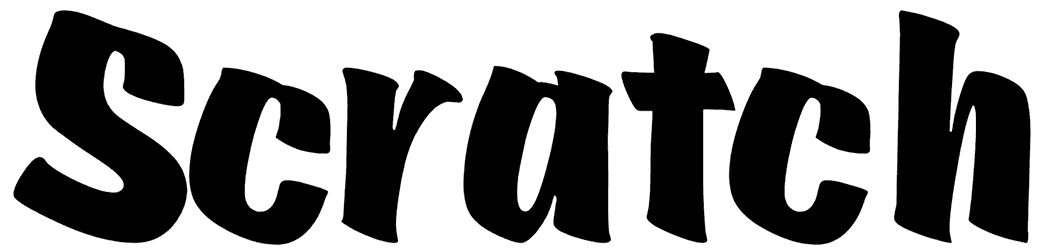
Scratch Font
Scratch is the handwritten font that is being unveiled right now. Its bold and confident aesthetic will make your movie, hoodie, animation, or video game designs pop. Using this font will lend an aura of playfulness to your work.